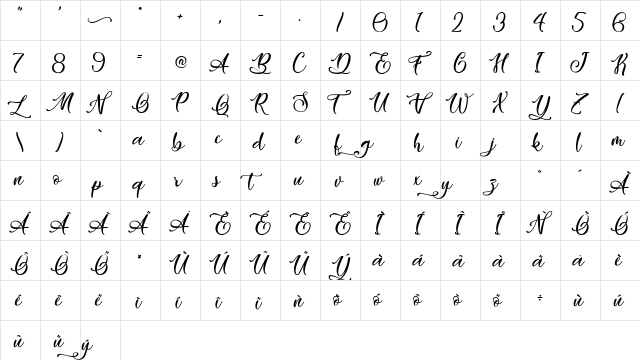
Easy November Regular
| Foundry | Typhoon Type - Suthi Srisopha |
| Designer | Typhoon Type - Suthi Srisopha |
Design Context for Easy November Typeface
Easy November is a composed and adaptable typeface that performs quietly and consistently across a wide range of design contexts.